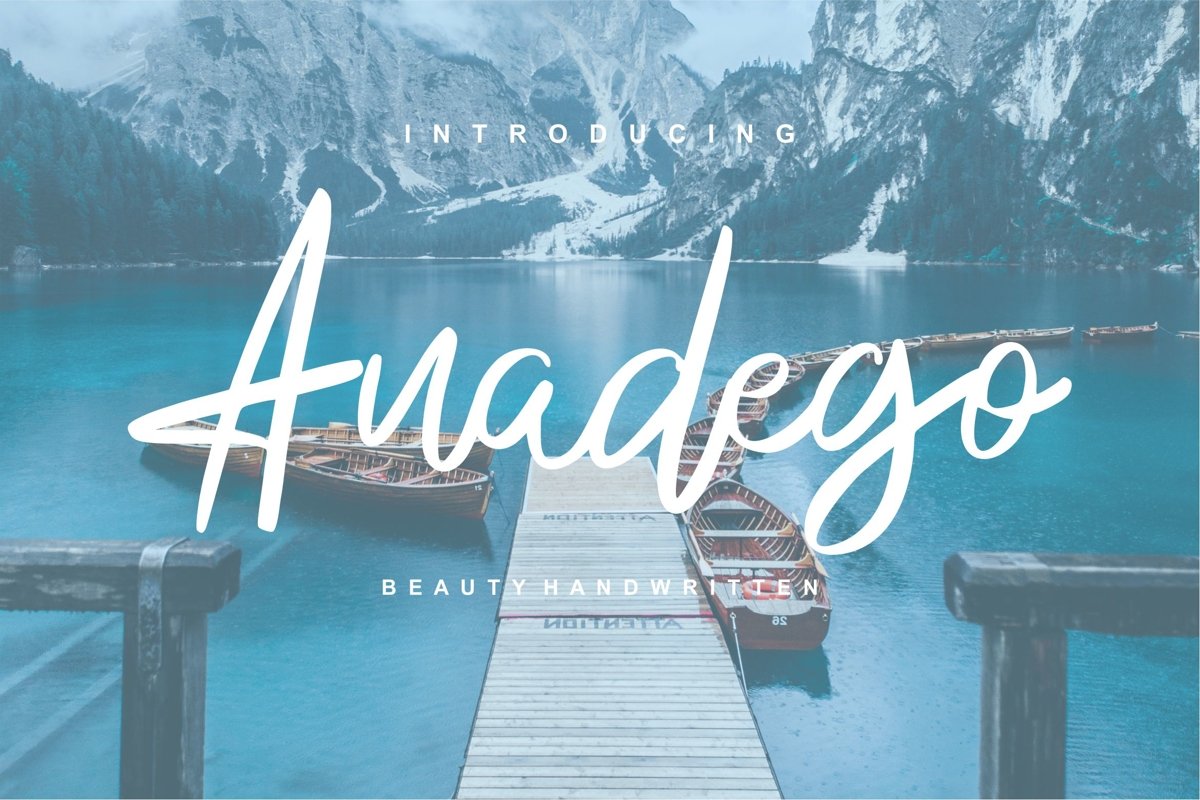
Anadego | Beauty Handwritten Script Font
Anadego
**Anadego | Beauty Handwritten Script** with a calligraphy style, So beautiful on invitation like greeting cards, branding materials, business cards, quotes, posters, and more!